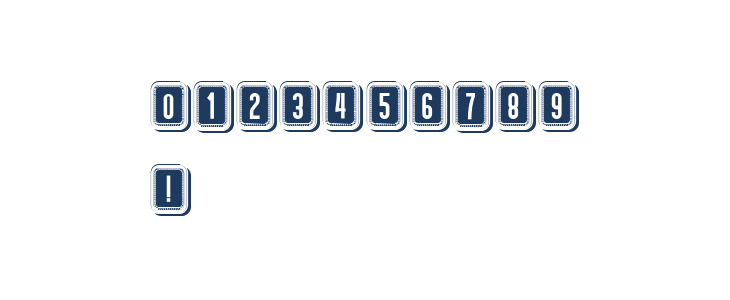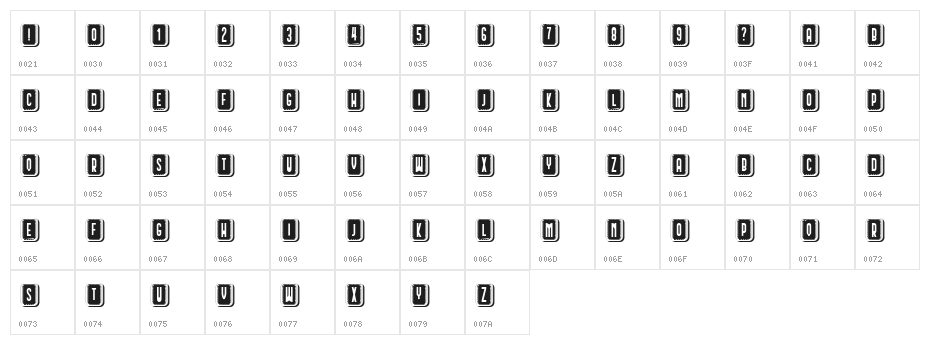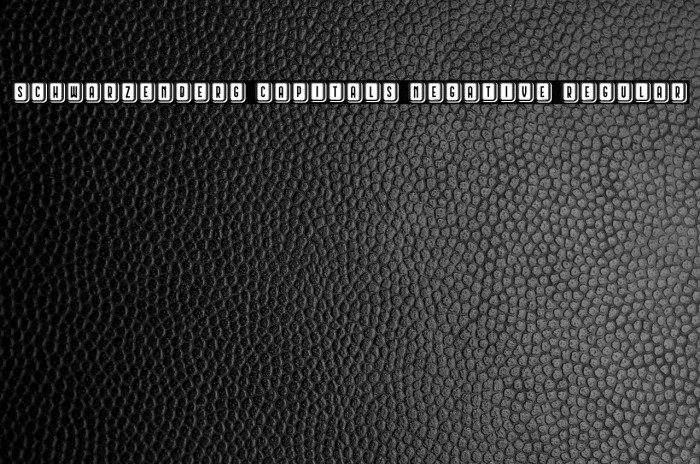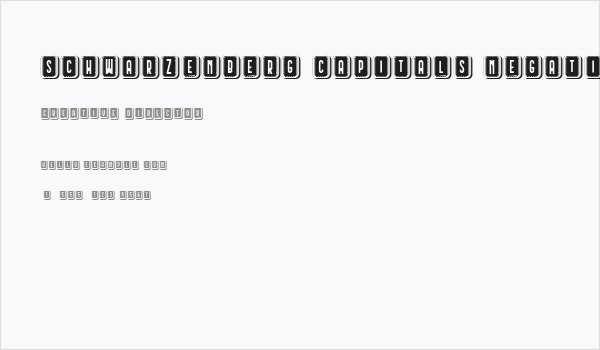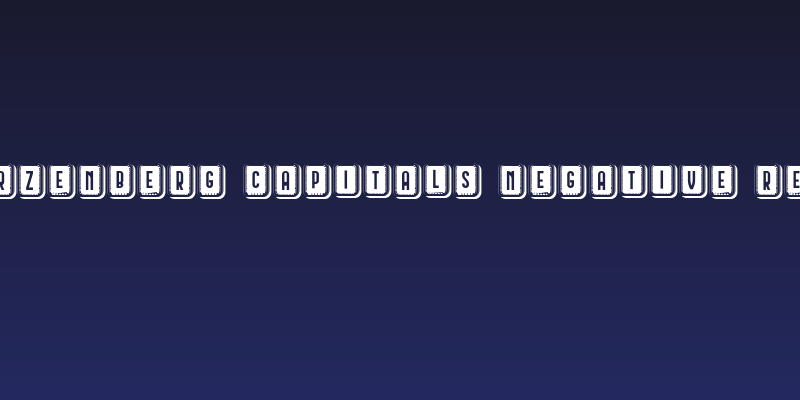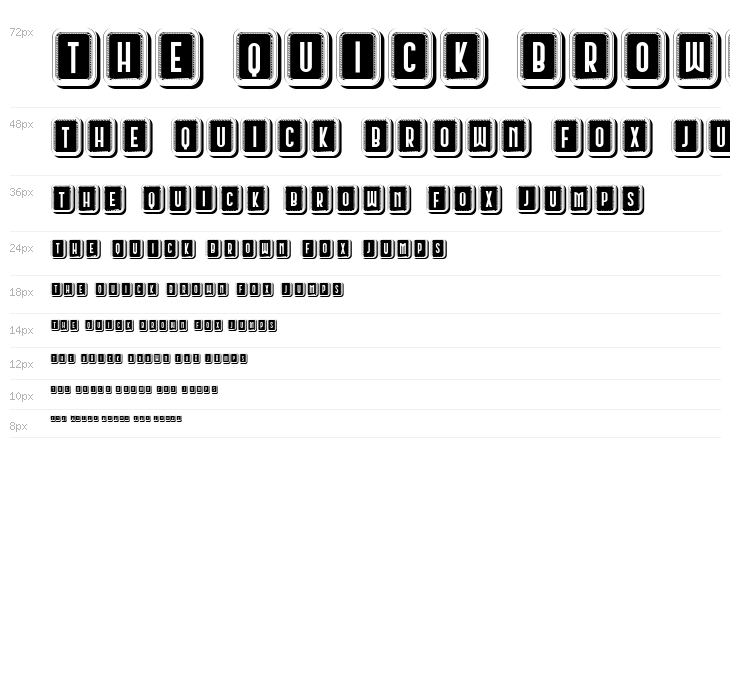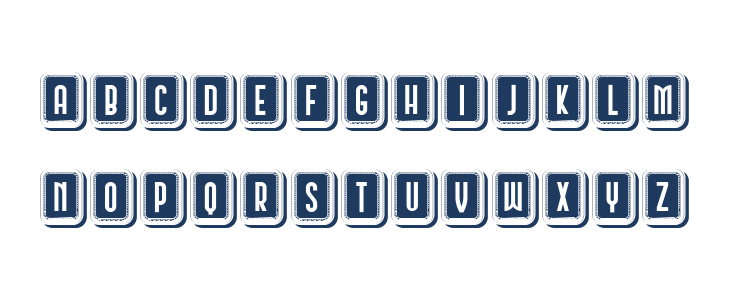
Schwarzenberg Capitals Negative Regular Font
Schwarzenberg Capitals Negative Regular Description
This font features a bold, decorative style with a three-dimensional effect. Each character is enclosed in a rectangular frame, giving it a unique, eye-catching appearance. The letters are uppercase and have a strong, blocky structure, making them highly legible. The design incorporates a shadow effect that adds depth and dimension, enhancing its visual impact. The numbers and special characters follow the same stylistic approach, ensuring consistency across all elements. This font is ideal for projects that require a striking and memorable typeface.
| Proposed Projects | Ideal for posters, signage, branding, and any project that requires a bold, attention-grabbing typeface. |